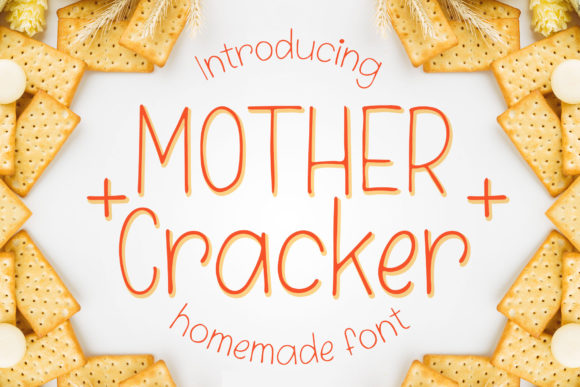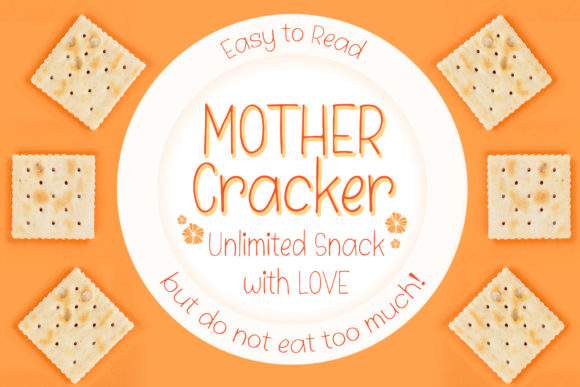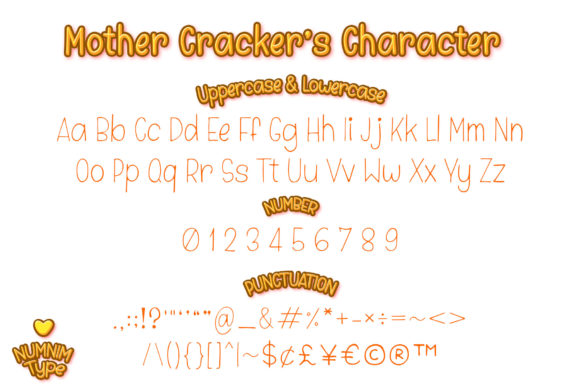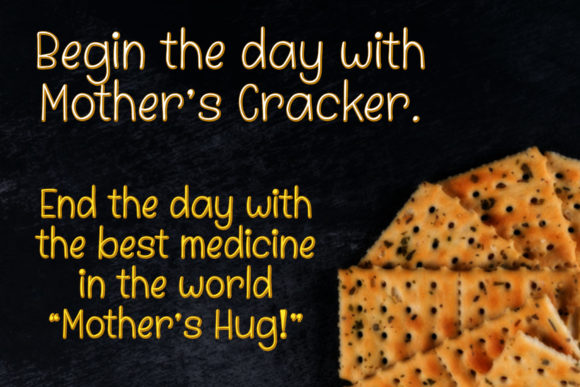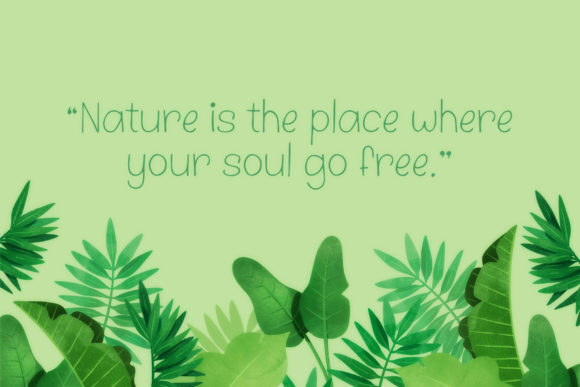
Mother Cracker Font
About Mother Cracker Font
Mother Cracker is a cute and casual handwritten font with an incredibly friendly feel. Whether you’re looking for fonts for Instagram or calligraphy scripts for DIY projects, this font will turn any creative idea into a true piece of art!